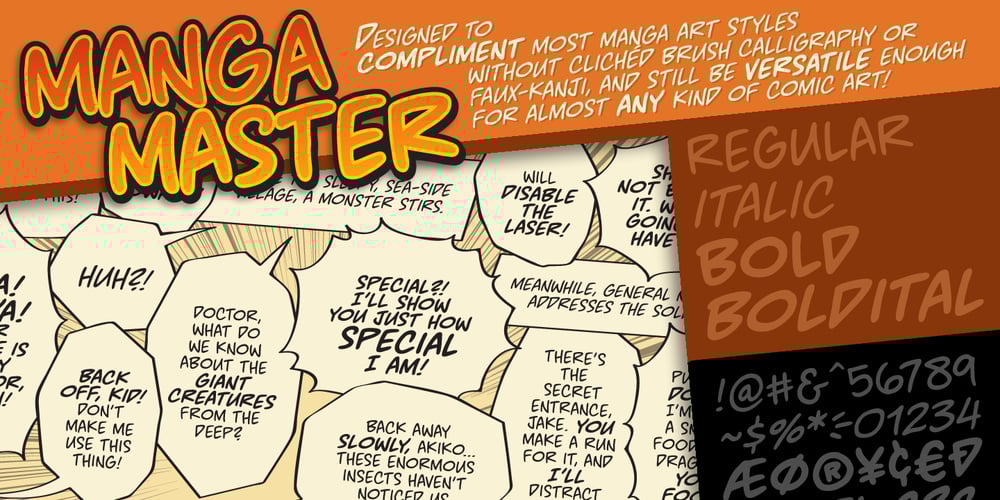
MangaMaster BB
MangaMaster BB font
MangaMaster BB Font Family was designed by Nate Piekos and published by Blambot. MangaMaster BB contains 9 styles and family package options. Designed to complement most manga art styles without clichéd brush calligraphy or faux-kanji, and still be versatile enough for almost any kind of comic art. The family comes with Regular, Italic, Bold, and BoldItalic, with a large compliment of European characters. The opentype version contains autoligatures to swap out identical, adjacent letters for a more hand lettered feel. Notes: A font family on MyFonts.com can contain an unlimited number of styles.